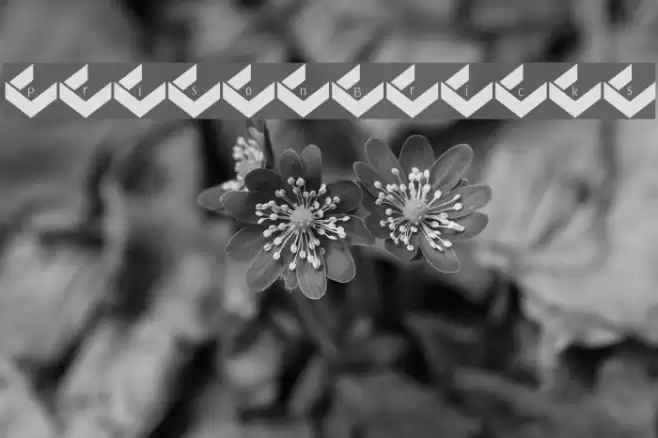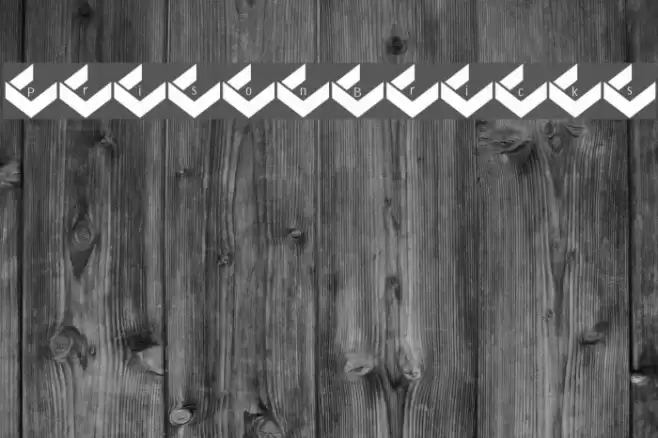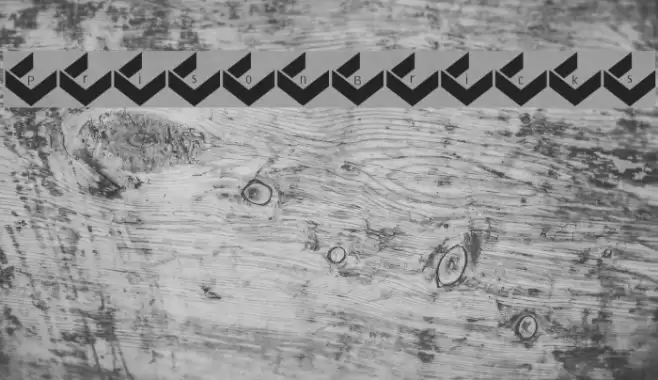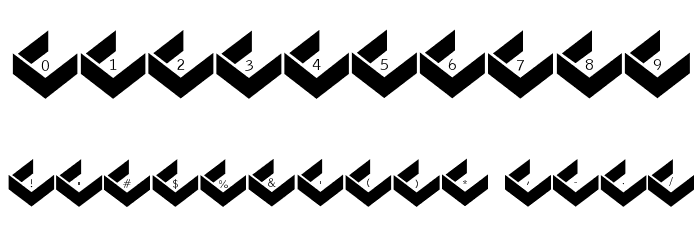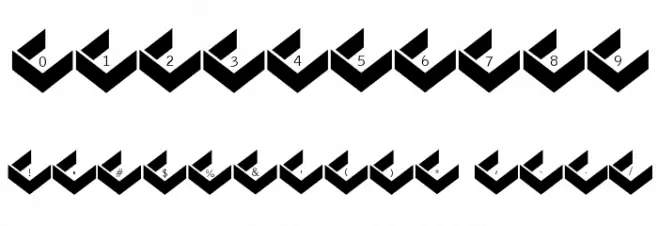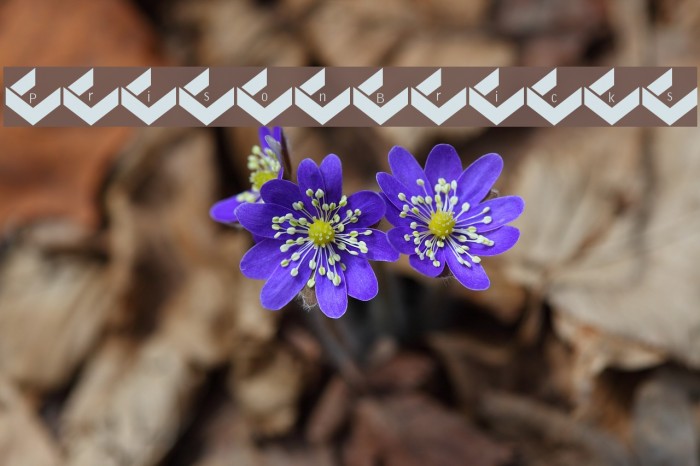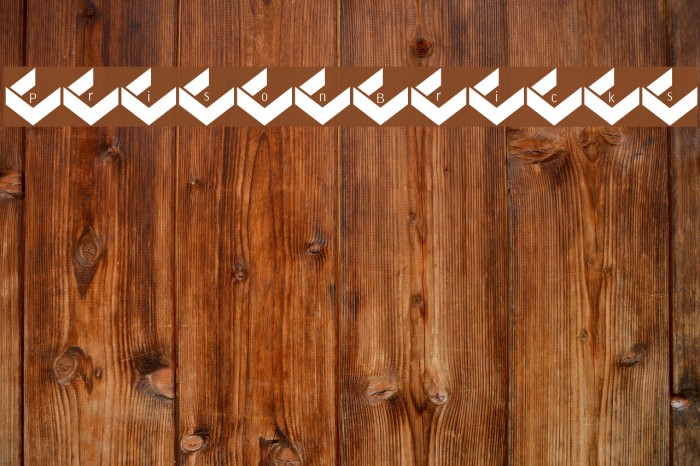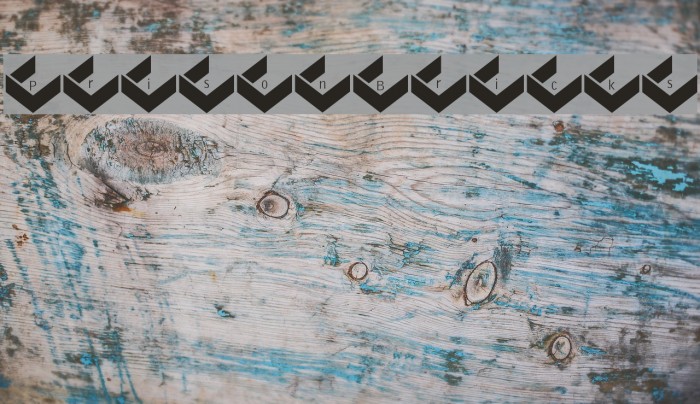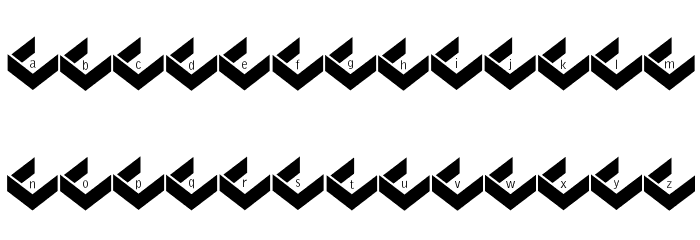
PrisonBricks Font
PrisonBricks Description
This font features a bold, geometric design with a three-dimensional effect, resembling a series of interlocking bricks or blocks. Each character is constructed with sharp angles and a distinct shadow, creating a sense of depth and structure. The uppercase and lowercase letters maintain a consistent style, with the same angular and blocky appearance. Numbers and special characters follow the same design principles, ensuring uniformity across all glyphs. The font's unique style makes it stand out, offering a visually striking appearance that is both modern and industrial.
A bold, geometric font with a 3D block design and angular structure from Uncategorized fonts.
- Proposed Projects: Ideal for branding, posters, video game graphics, and any project requiring a modern, industrial look.